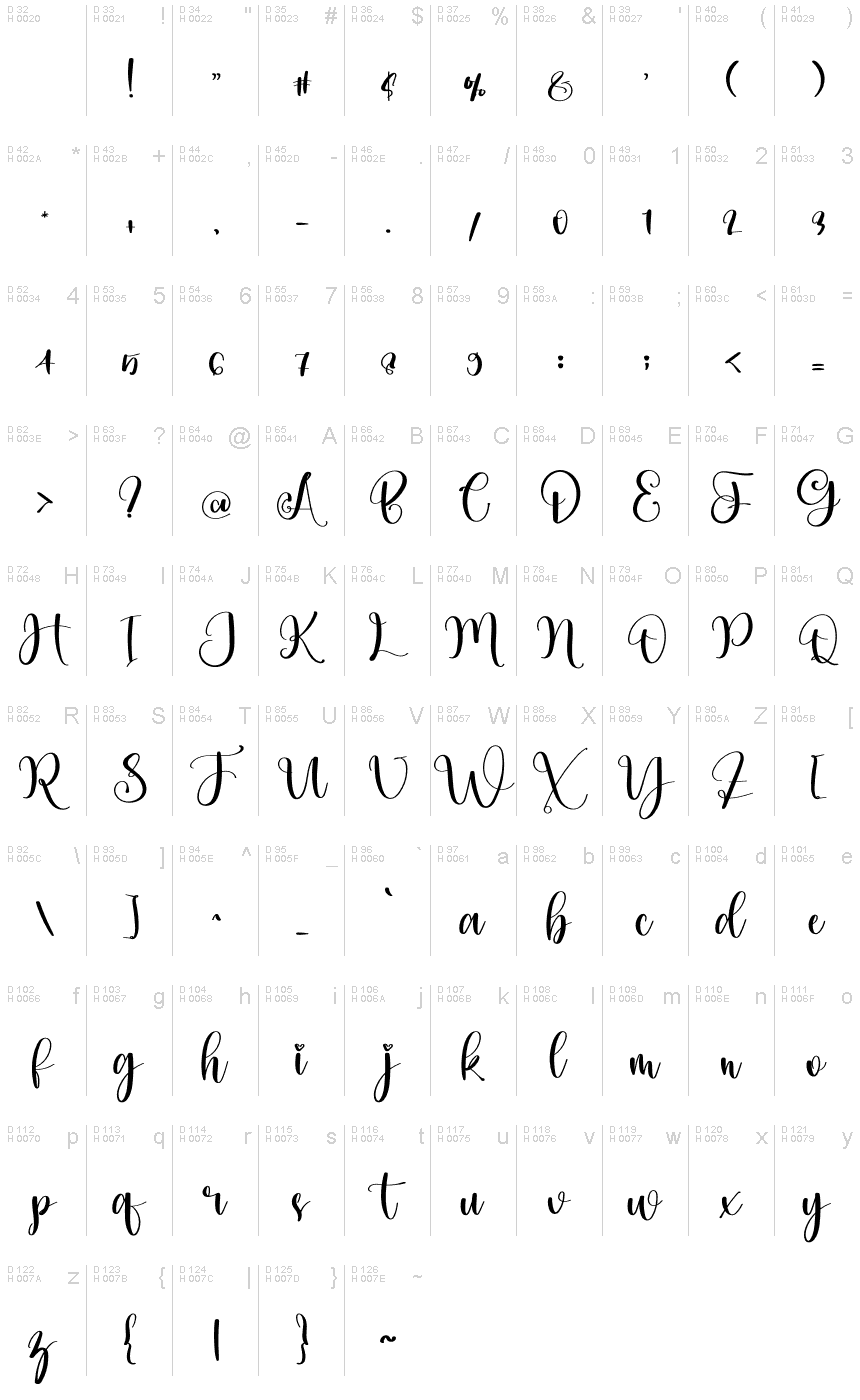
Talld
Talld, a graceful creation by Inermedia Studio, breathes new life into the art of calligraphy with its semi-light weight and flowing elegance. This font dances between classic charm and contemporary flair, making it a versatile choice for varied design landscapes. With each stroke exuding sophistication and a touch of whimsy, Talld promises to elevate wedding invitations, branding materials, and editorial designs alike.
Its aesthetic appeal lies in the harmonious balance between ornate details and readable simplicity—ideal for creators seeking to infuse their projects with both personality and clarity.